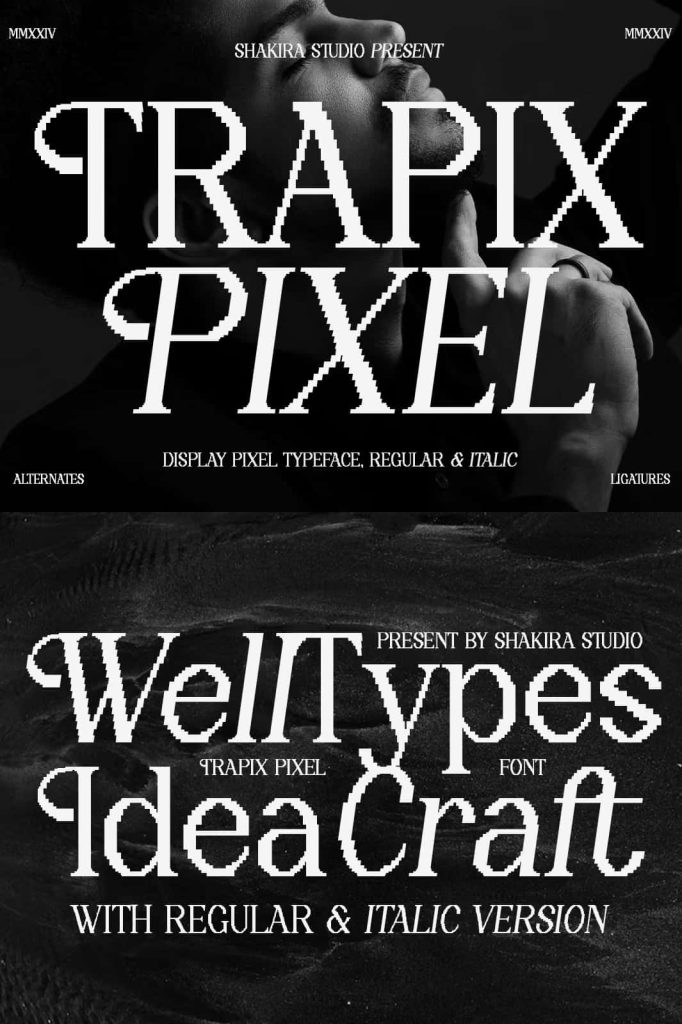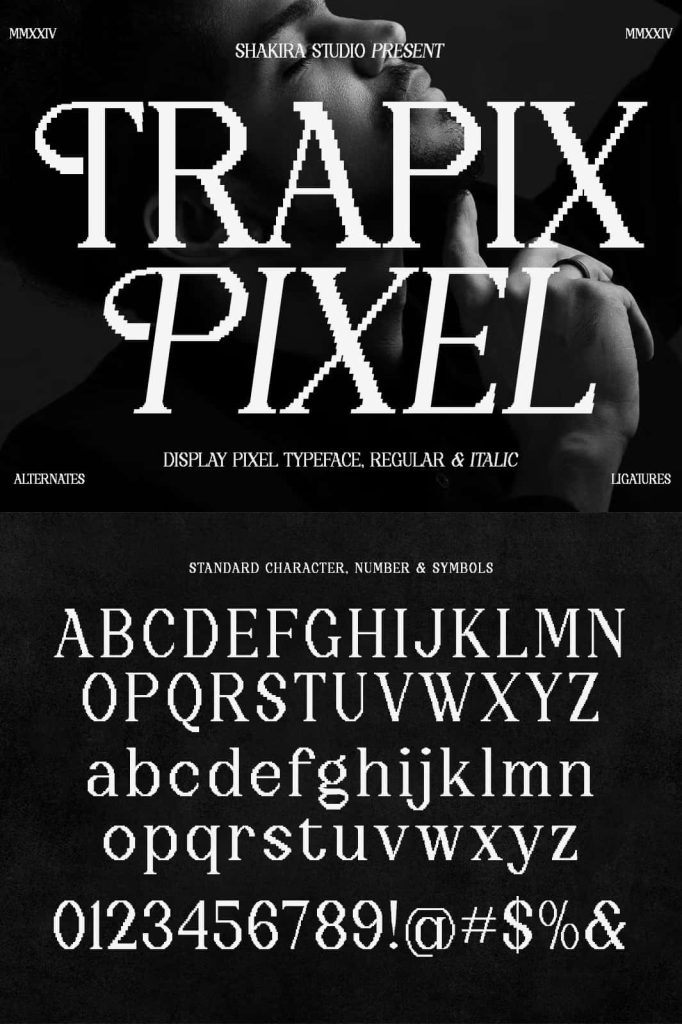
Trapix – A Unique Pixel-Style SerifleastedJanuary 21, 2025Fonts Trapix is a serif typeface with a unique pixel character, designed to bring a modern touch to your designs. Download